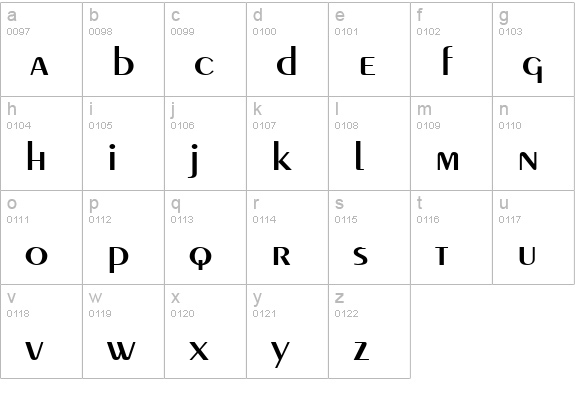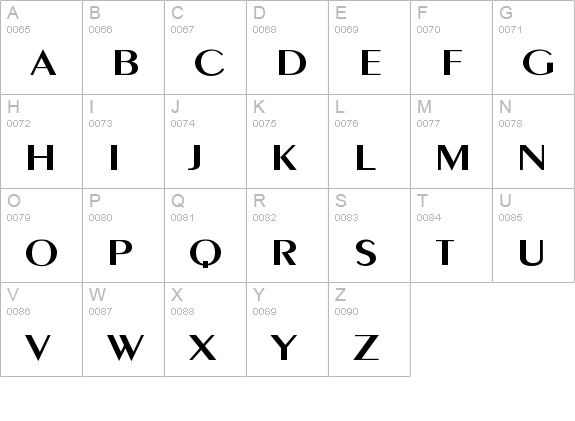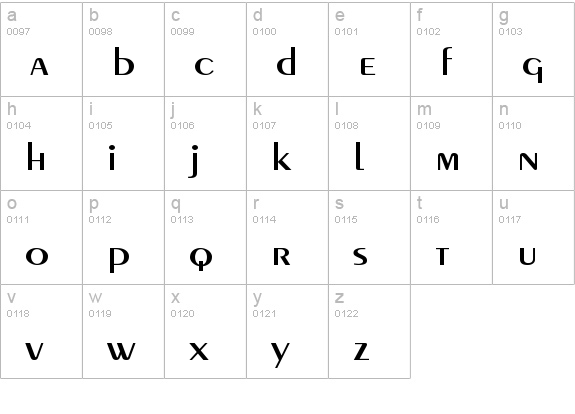
Pare Wide Normal is the standard, neutral, extended-width variant in the Pare typeface family \xE2\x80\x94 well suited to general body text, paragraphs, and standard typographic work.
Pare Wide Normal is a versatile and elegant font that adds a touch of sophistication to any project. With its clean and modern design, this font is perfect for both print and digital applications. Its wide letters and balanced spacing create a visually pleasing aesthetic that captures attention effortlessly. This font is ideal for a variety of purposes, from branding and advertising to website design and social media graphics. Whether you are creating a logo, designing a brochure, or crafting an eye-catching poster, Pare Wide Normal will elevate your work to new heights. One of the best things about Pare Wide Normal is that it is completely free. That's right, you can download this font at no cost from FontsMarket.com. This means that you can enjoy all the benefits of this stunning typeface without having to worry about breaking the bank. Not only is Pare Wide Normal free, but it is also incredibly easy to use. It is available in multiple formats, making it compatible with a wide range of design software. Whether you prefer Adobe Creative Suite, Microsoft Office, or any other design program, you can seamlessly incorporate Pare Wide Normal into your projects. So why wait? Start using Pare Wide Normal today and experience the beauty and versatility of this remarkable font. With its free availability and exceptional design, Pare Wide Normal is a must-have for any designer or creative professional. Download it now from FontsMarket.com and let your creativity shine.